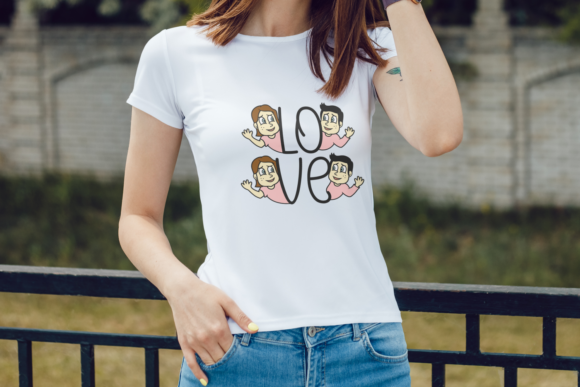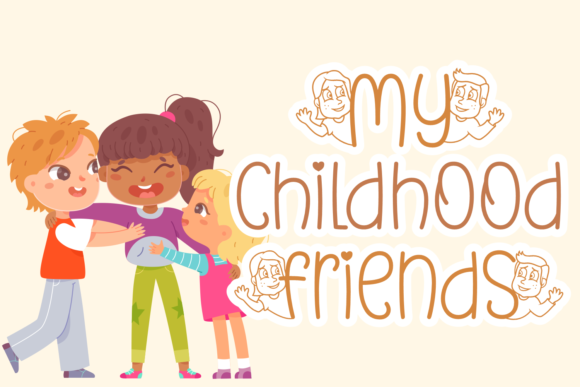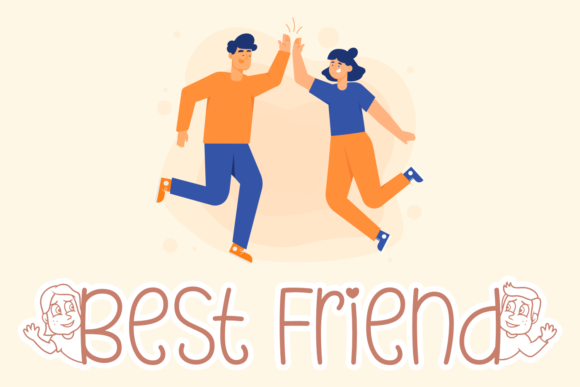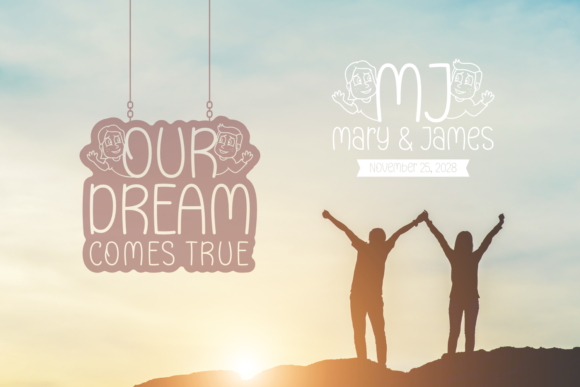
Introducing Emila Rolis Font: A Playful and Unique Display Typeface
Are you tired of using the same old fonts for your designs? Look no further than Emila Rolis Font, a creative and interactive typeface that’s perfect for adding a touch of playfulness to your projects. With its slim characters and playful flair, Emila Rolis is ideal for use on products that require eye-catching typography, such as children’s designs, storybooks, ads, social media posts, and more.
What Makes Emila Rolis Font So Special?
Emila Rolis Font is a unique display font that stands out from the crowd with its distinctive features. Here are just a few reasons why designers and crafters love this font:
- Slim Characters: Emila Rolis features slim characters that are perfect for creating a sense of elegance and sophistication in your designs.
- Playful Flair: The font’s playful flair adds a touch of whimsy and fun to your designs, making it perfect for projects that require a bit of personality.
- High Versatility: Emila Rolis is a highly versatile font that can be used on a wide range of products, from children’s designs and storybooks to ads and social media posts.
Perfect for Interactive Typography
Emila Rolis Font is specifically designed for use on products that require interactive typography. Its unique features make it perfect for:
- Children’s Designs: Emila Rolis is a great choice for children’s designs, such as book covers, posters, and activity sheets.
- Storybooks: The font’s playful flair and slim characters make it perfect for use in storybooks, adding a touch of magic and wonder to your stories.
- Ads: Emila Rolis is a great choice for ads, as its unique features help to grab attention and make your message stand out.
- Social Media Posts: The font’s interactive typography makes it perfect for use in social media posts, adding a touch of personality and fun to your online presence.
Tips for Using Emila Rolis Font
Here are a few tips for getting the most out of Emila Rolis Font:
- Experiment with Colors: Emila Rolis looks great in a wide range of colors, so don’t be afraid to experiment and find the perfect hue for your design.
- Play with Sizes: The font’s slim characters look great in a variety of sizes, from small and delicate to large and bold.
- Combine with Other Fonts: Emila Rolis pairs well with a wide range of other fonts, so feel free to get creative and experiment with different combinations.
Emila Rolis Font is a unique and creative display typeface that’s perfect for adding a touch of playfulness and personality to your designs. With its slim characters and playful flair, it’s ideal for use on products that require interactive typography, such as children’s designs, storybooks, ads, social media posts, and more. So why not give Emila Rolis a try and see the difference it can make in your designs?
Emila Rolis Font: The Perfect Choice for Designers and Crafters
Whether you’re a professional designer or a crafty DIY enthusiast, Emila Rolis Font is the perfect choice for adding a touch of personality and whimsy to your projects. So why not give it a try and see the difference it can make?